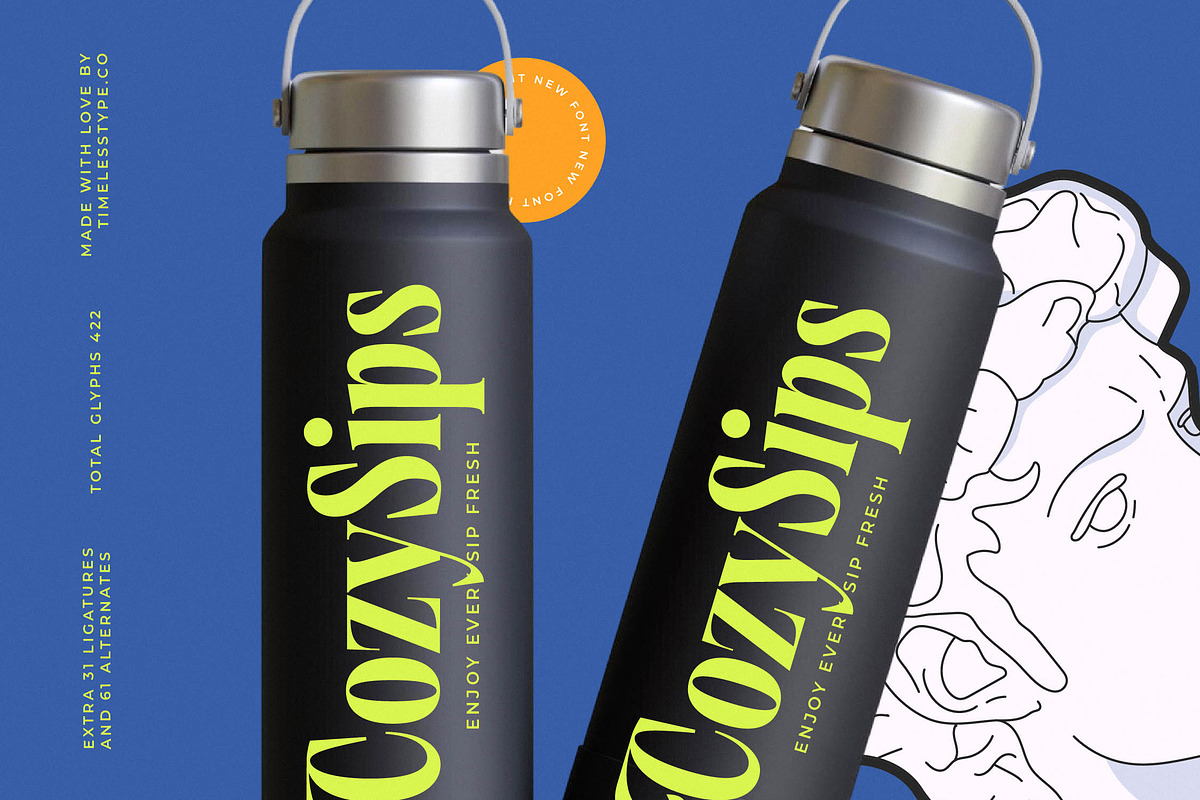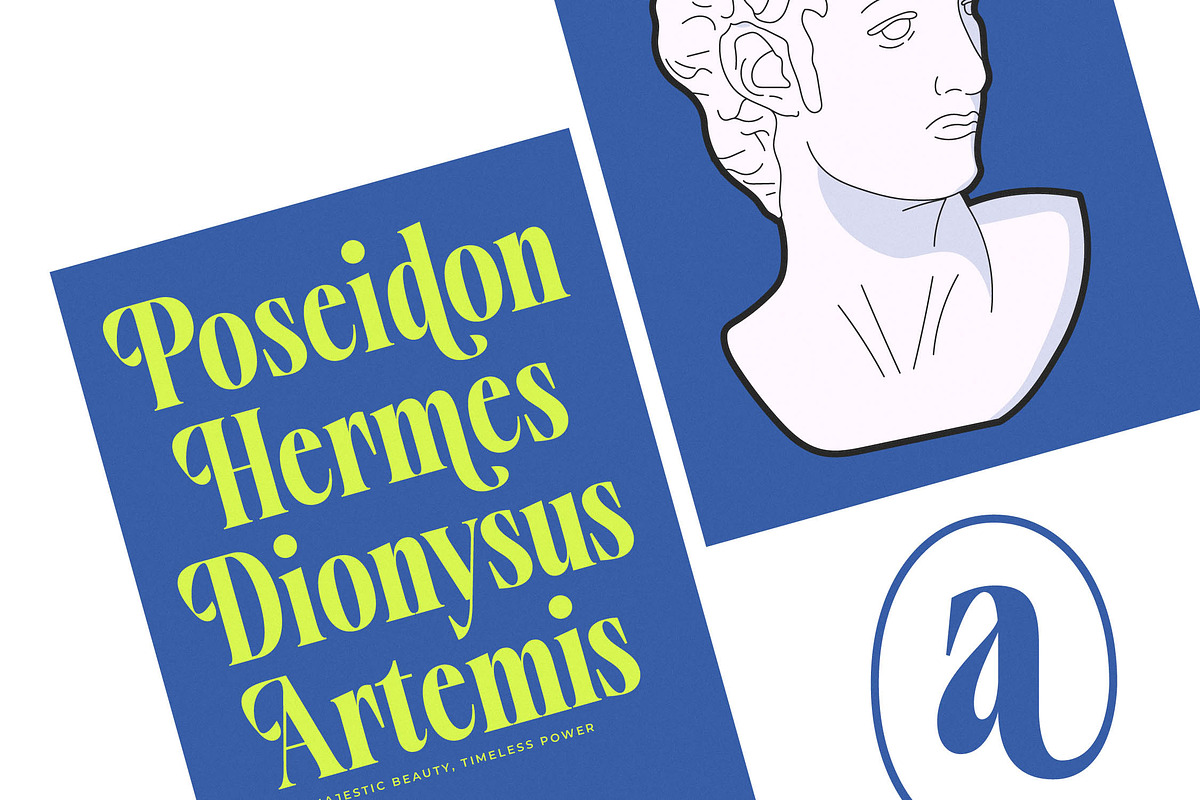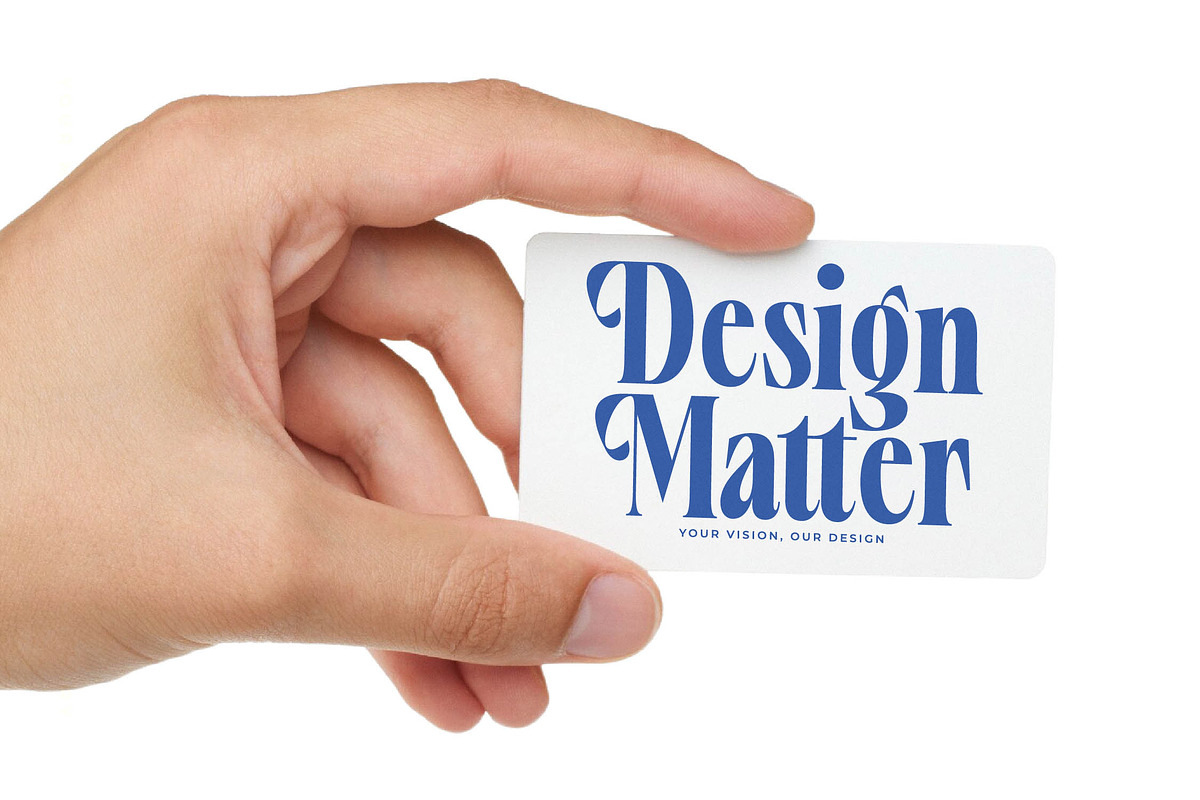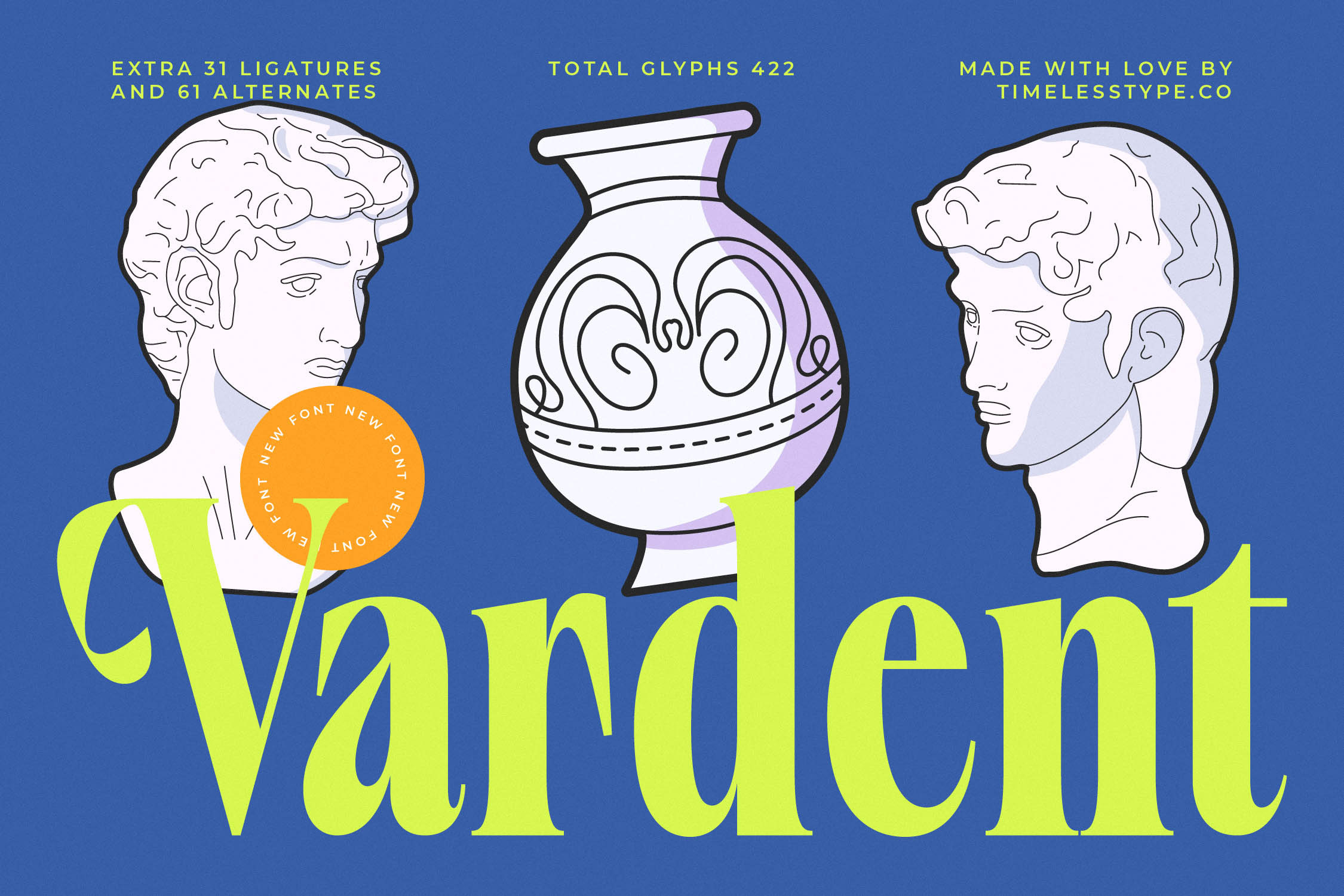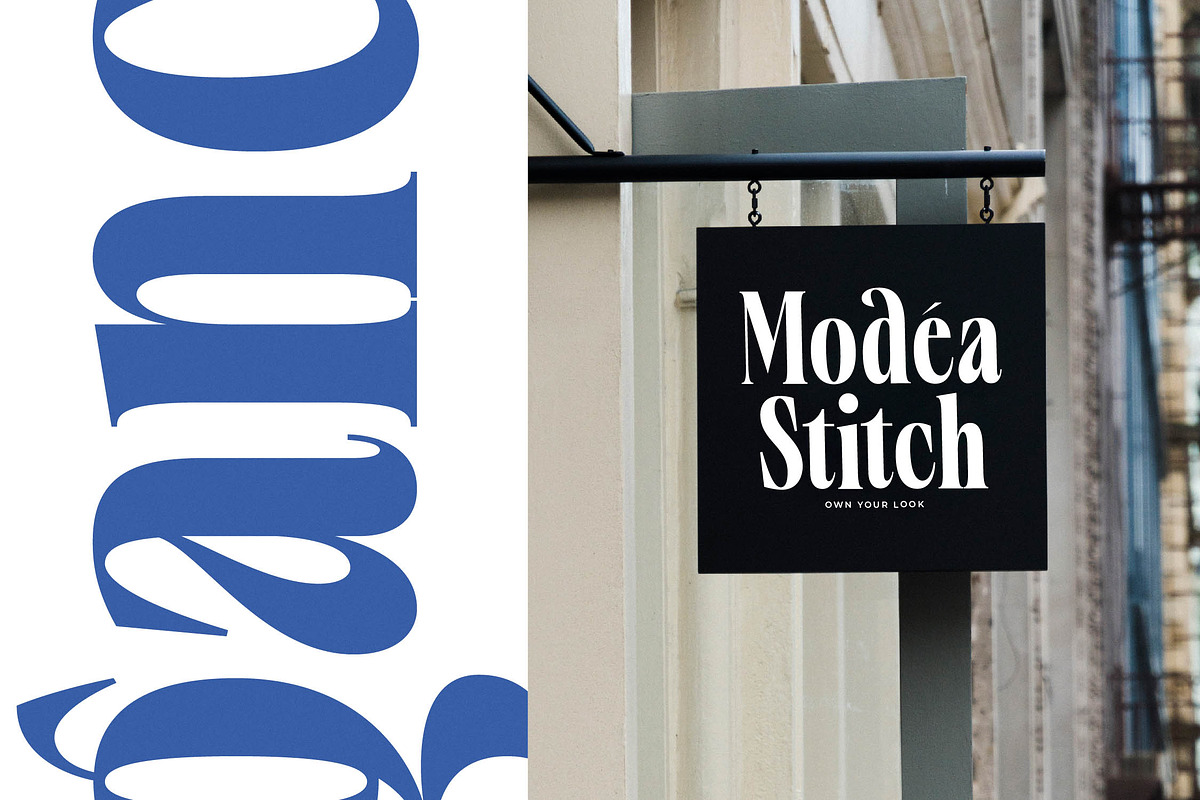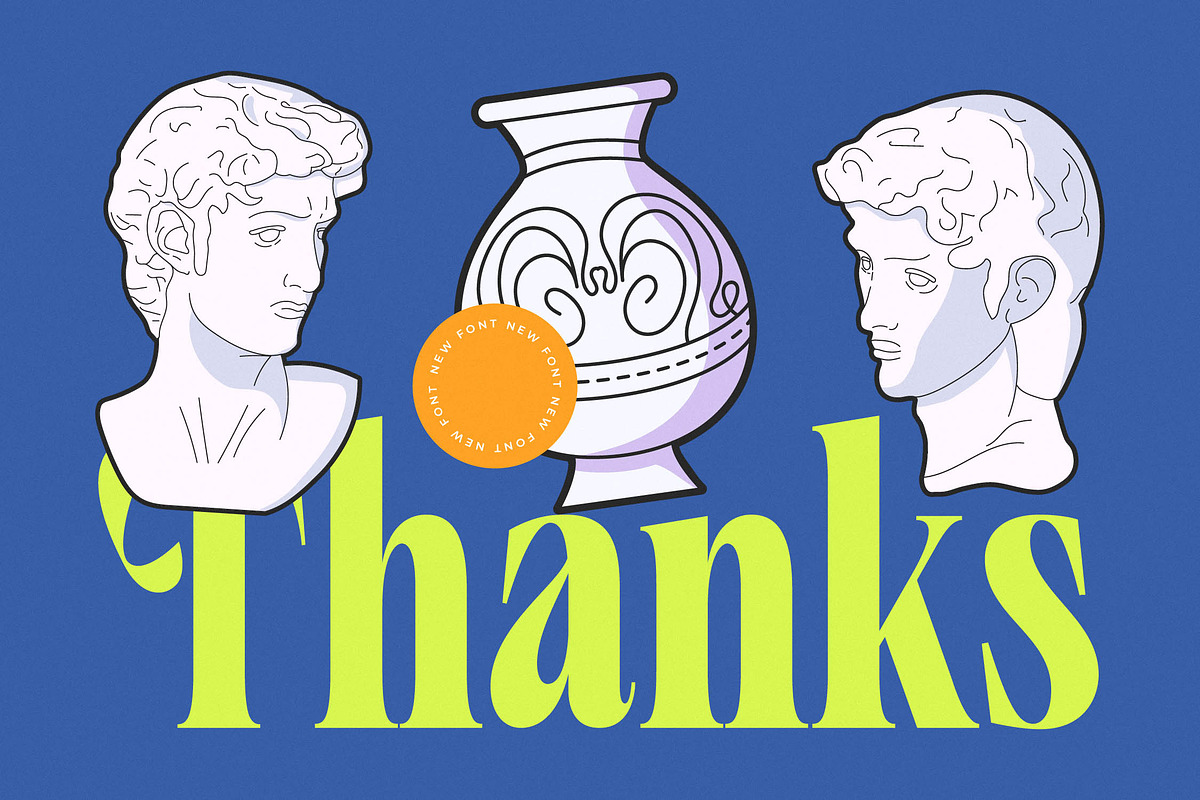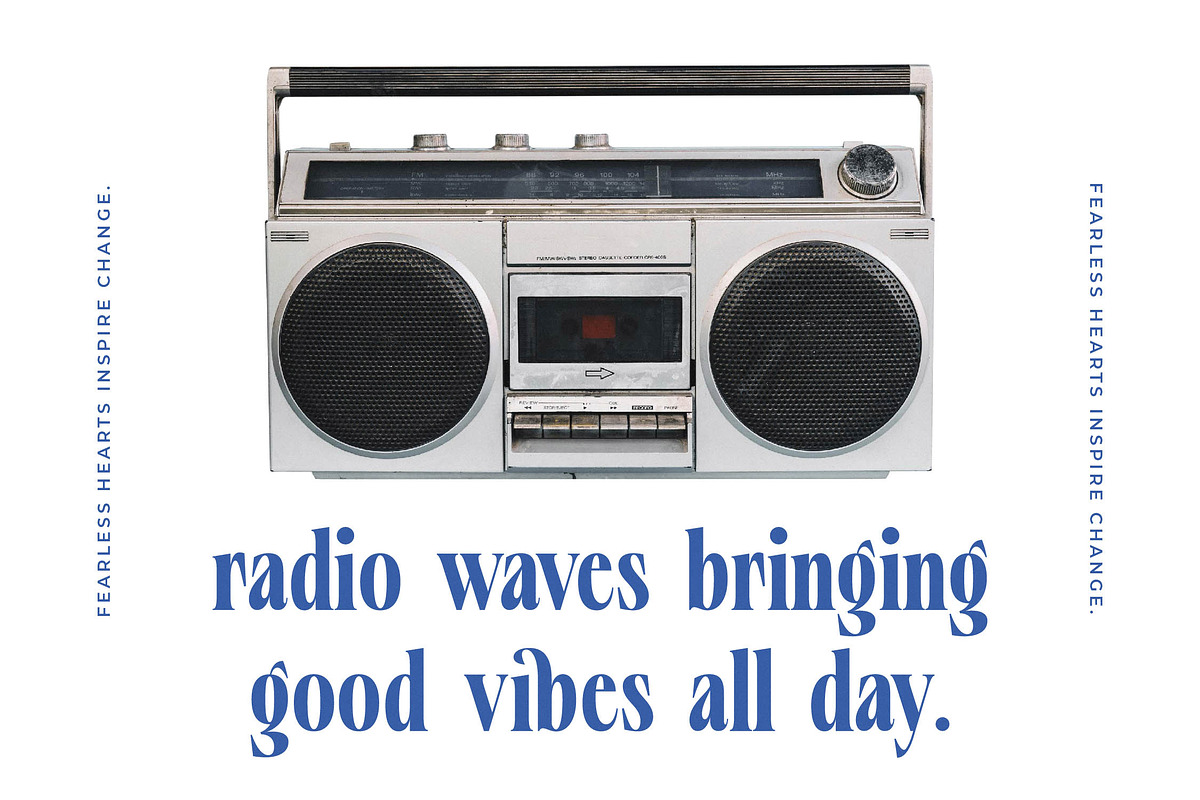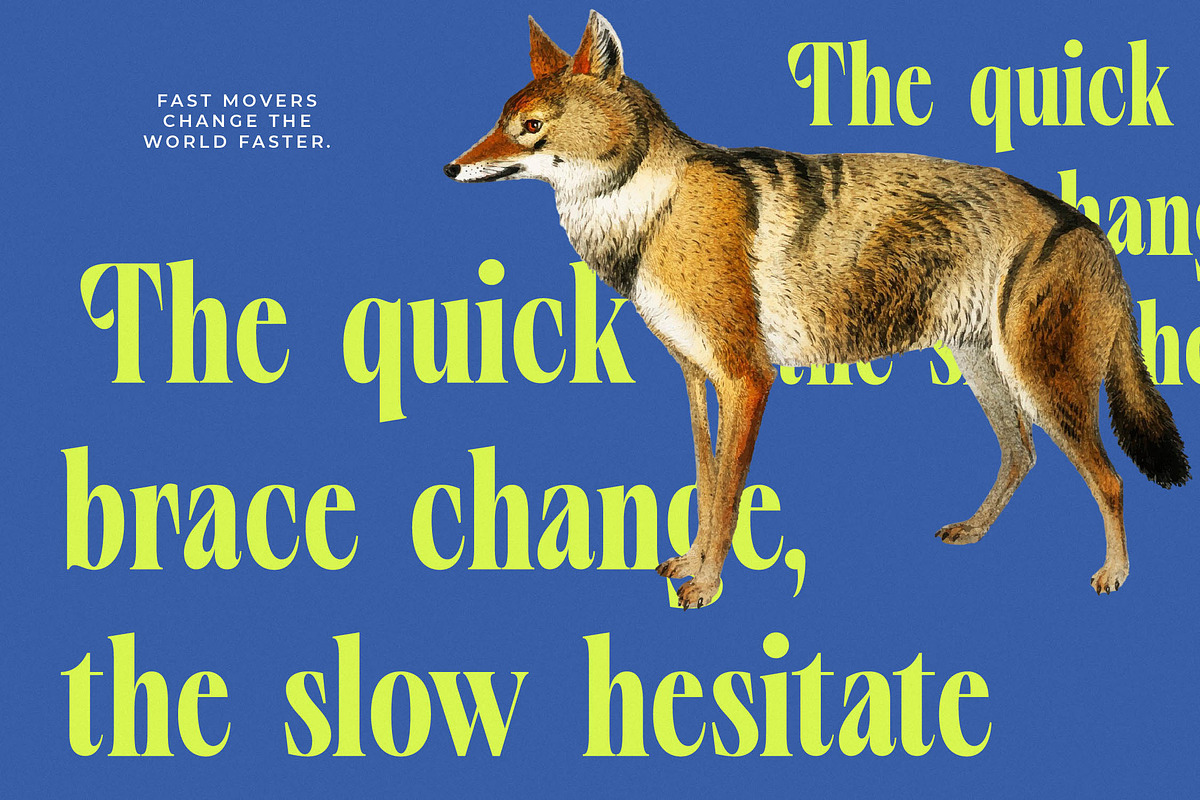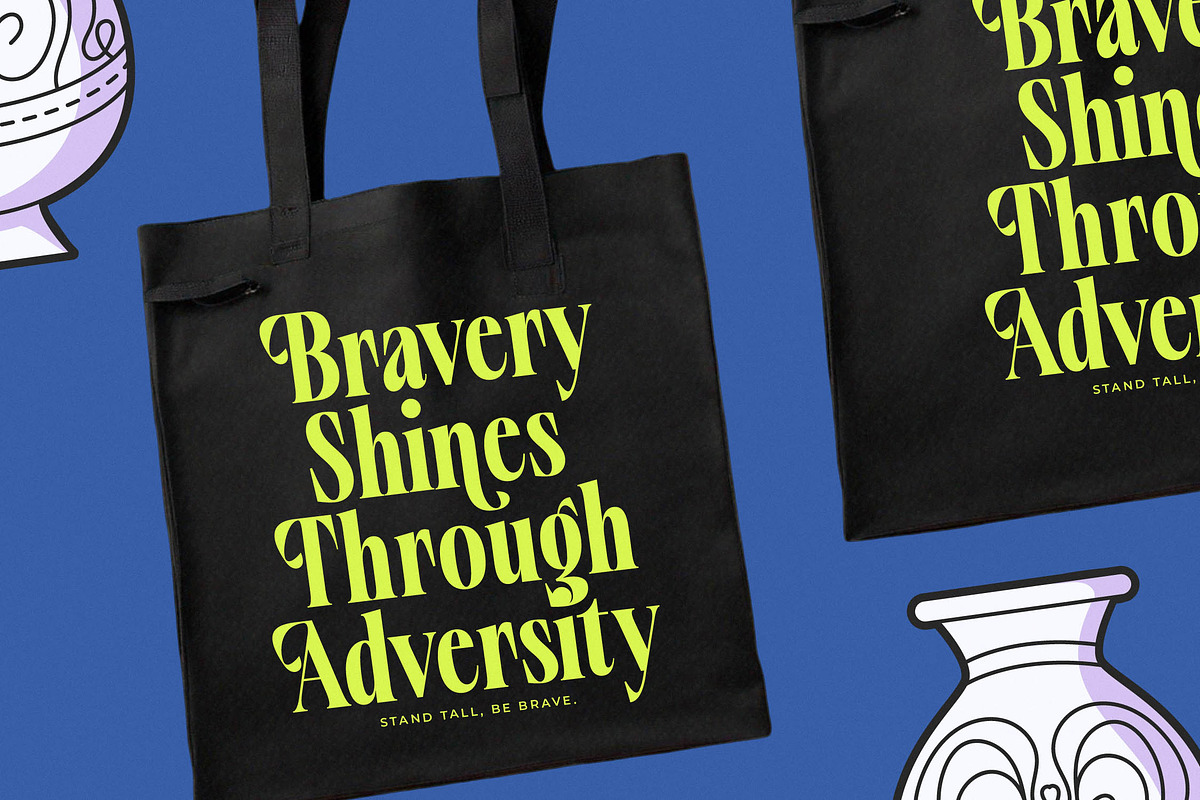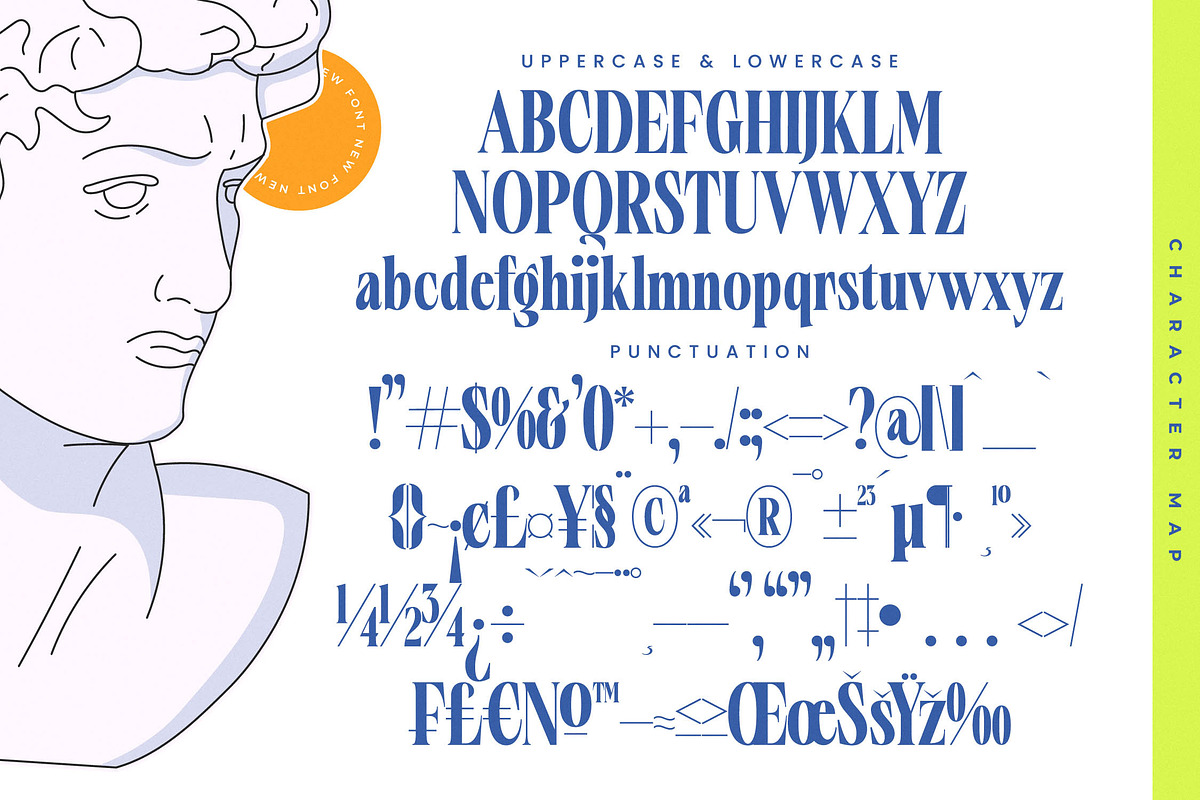
Vardent Modern Display Serif Font
Vardent is a captivating masterpiece that bridges the gap between classical artistry and contemporary design with effortless grace. This font speaks to the soul of sophistication, offering a visual narrative that is both timeless and strikingly avant-garde.
Inspired by the marble textures of Hellenistic sculpture and the refined curves of ancient pottery, this typeface breathes new life into traditional forms. It captures the quiet strength of a museum gallery, transforming historical elegance into a vibrant tool for the modern creator.
With its sharp terminals and dramatic thick-to-thin transitions, this modern serif display is engineered for maximum branding impact. It exudes a sense of luxury typography through its high-contrast serif strokes, making it an essential editorial font for those who refuse to settle for the ordinary.
Perfectly aligned with the current modern serif trend, this typeface addresses the growing demand for character-driven typography in the digital age. It stands out among editorial display fonts by offering a unique silhouette that remains legible while pushing the boundaries of stylistic expression.
This versatile typeface is the ultimate choice for high-end logo design and comprehensive branding projects that require a touch of class. From luxury packaging and high-street fashion layouts to sophisticated wedding invitations and editorial spreads, it adapts to any medium with impeccable style.
The extensive character set includes 422 glyphs featuring 31 unique ligatures and 61 expressive alternates to customize every word. It also boasts comprehensive multilingual support and international characters, ensuring your message resonates across global markets with ease.
- Ligature 31 Alternate 61